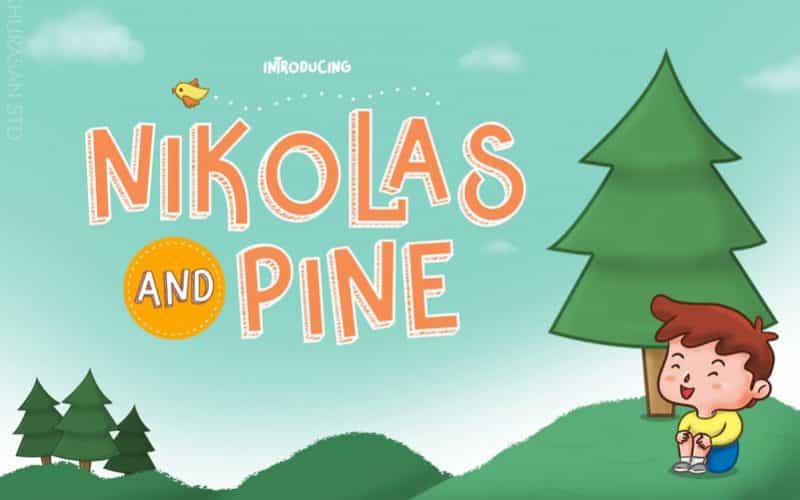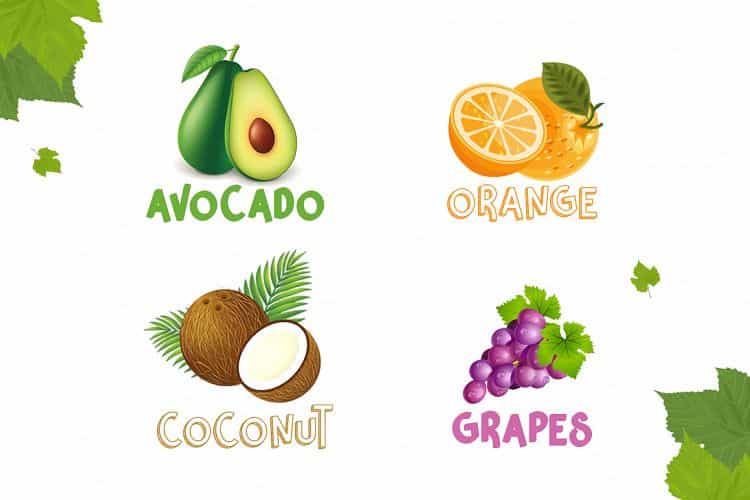
Nikolas And Pine is a fun display typeface that contains simple, cheerful elements for your enjoyable project. Nikolas And Pine font; it have multilanguage & working with the layers method. Nikolas And Pine font suitable for logo, branding, greeting card, poster and any design that you create.